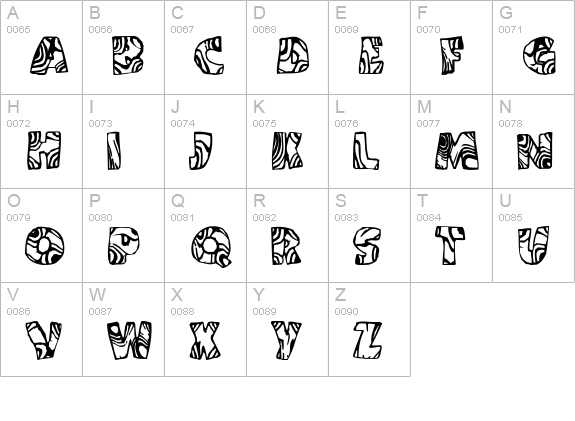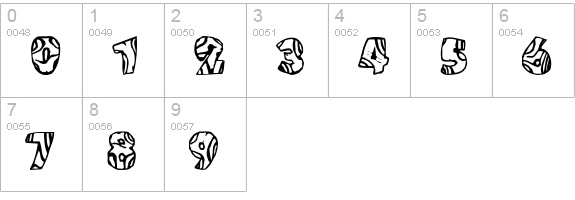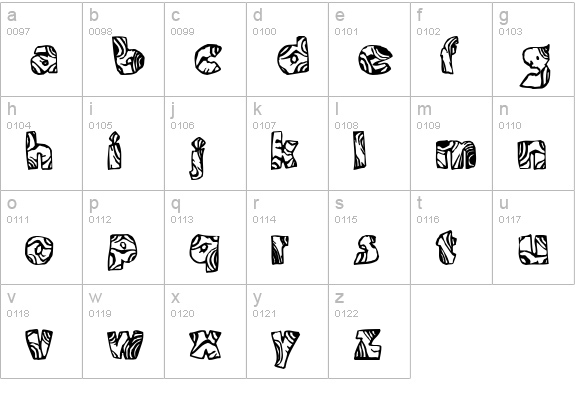
Swirled BRK Font Details
Swirled BRK font is a unique and elegant typeface that exudes sophistication and charm. Its delicate swirls and intricate details make it perfect for adding a touch of luxury to your designs. The flowing curves of the letters give this font a graceful and artistic feel, making it ideal for invitations, logos, and other creative projects. What makes Swirled BRK font even more appealing is that it is completely free to download at FontsMarket.com. This means that you can easily access this stunning font without any cost, allowing you to elevate your design projects without breaking the bank. Don't miss out on the opportunity to add Swirled BRK font to your font collection and bring a touch of elegance to your next project.